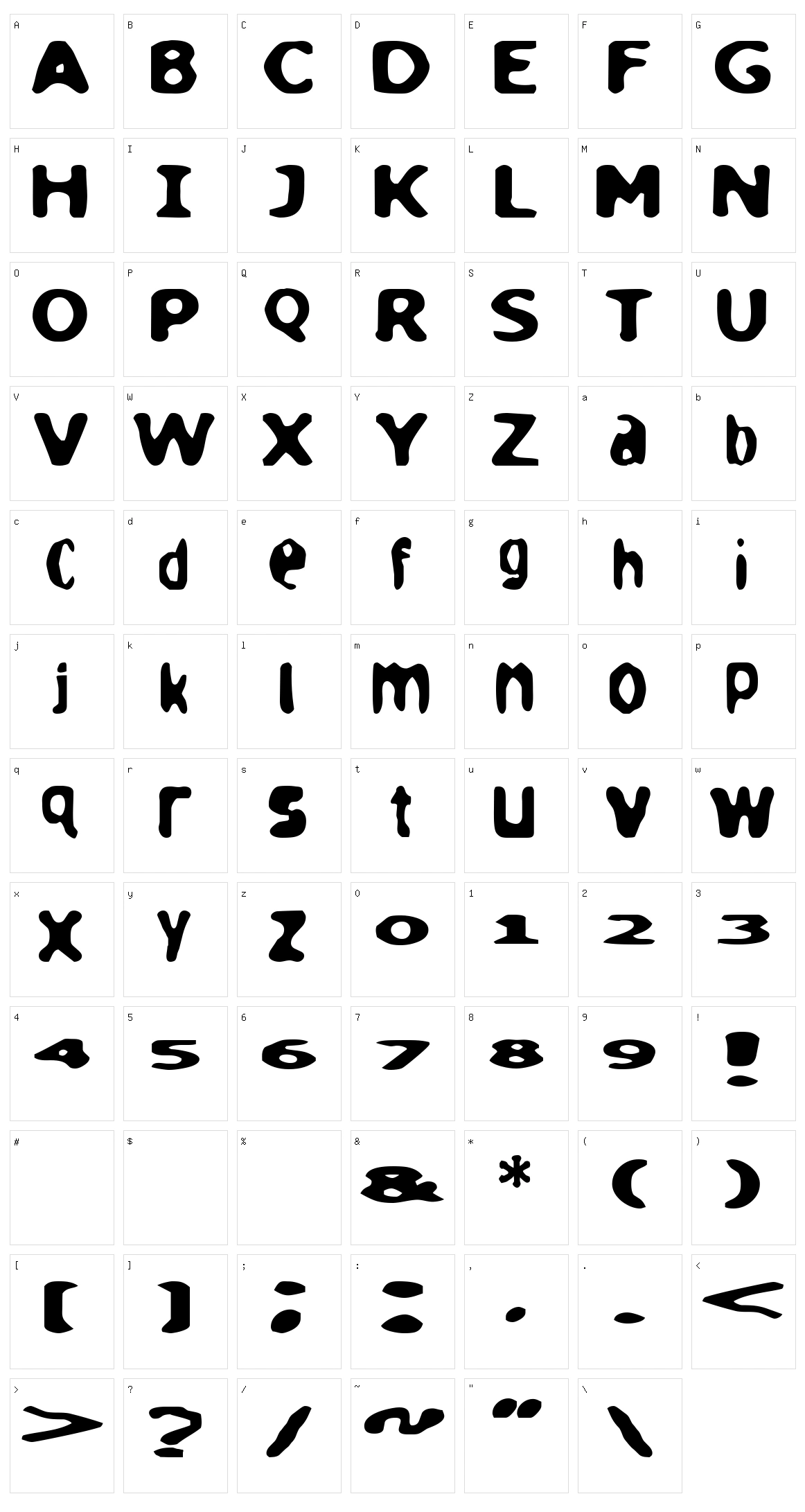
The free font Loaf is carefully designed by William Clifford, showcasing a thoughtful balance of creativity and usability and falls under the Eroded font style. When you download the ZIP file, it contains only 15.54 KB of font files, making it lightweight and quick to download. Please review the license details below to understand permitted usage and distribution rights. If license information is not available, we recommend using this font for personal projects only or contacting the author directly for commercial usage permissions.
This typeface does not have a complete character set.